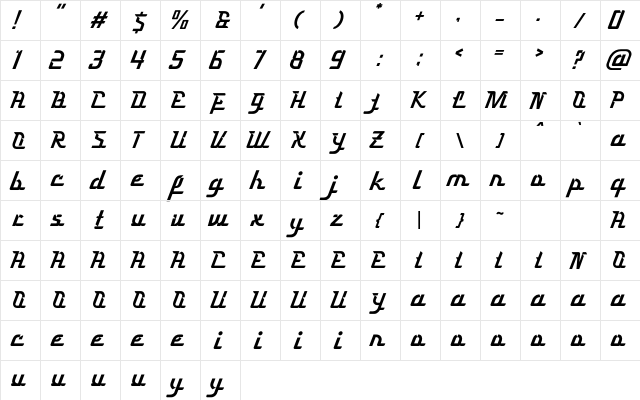
Merkurius Regular
| Designer | Omaikraf Studio |
Design Context for Merkurius Typeface
Merkurius is a composed and adaptable typeface that performs quietly and consistently across a wide range of design contexts.